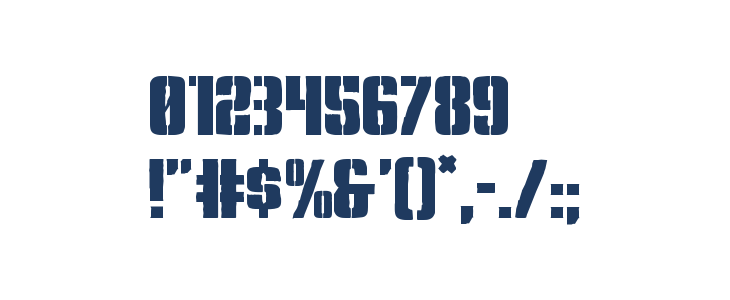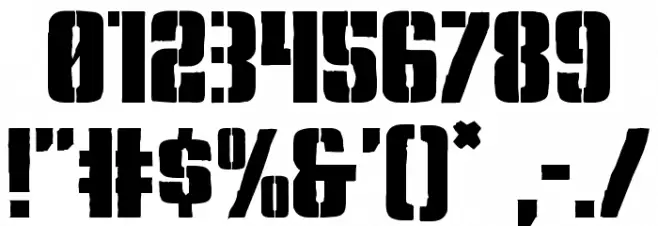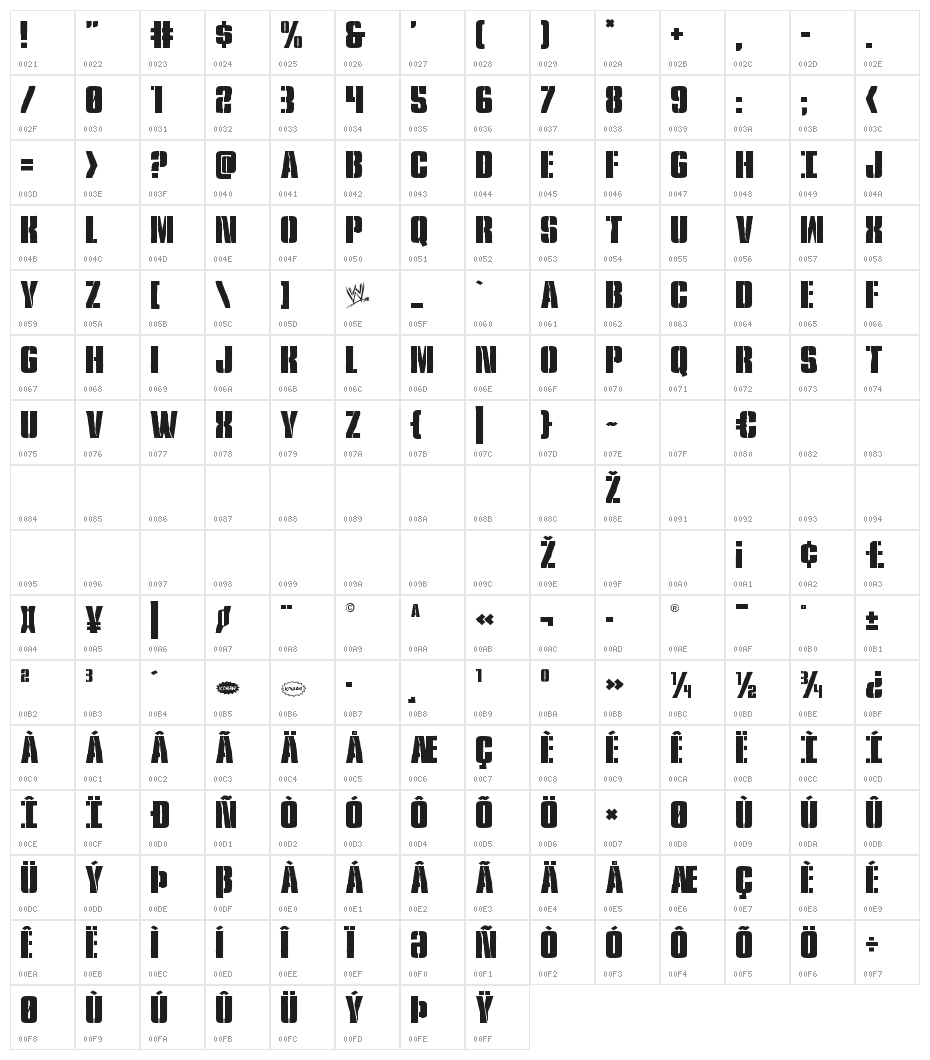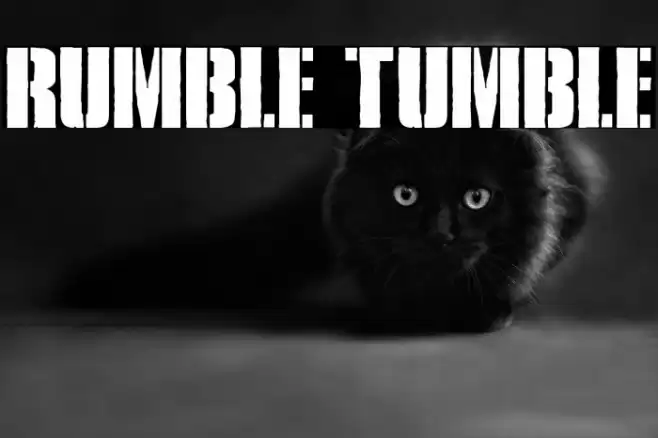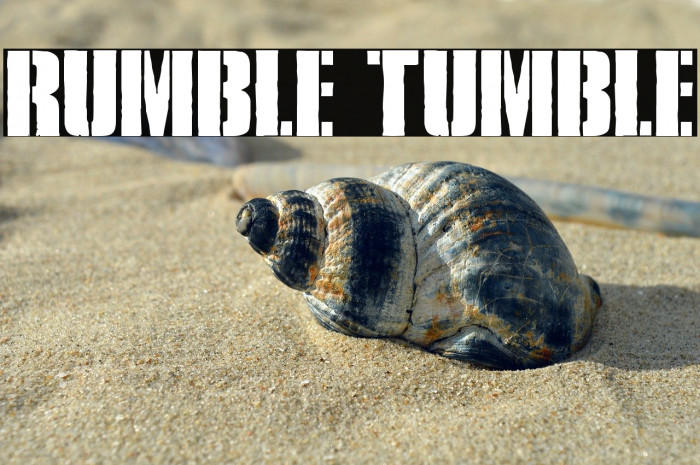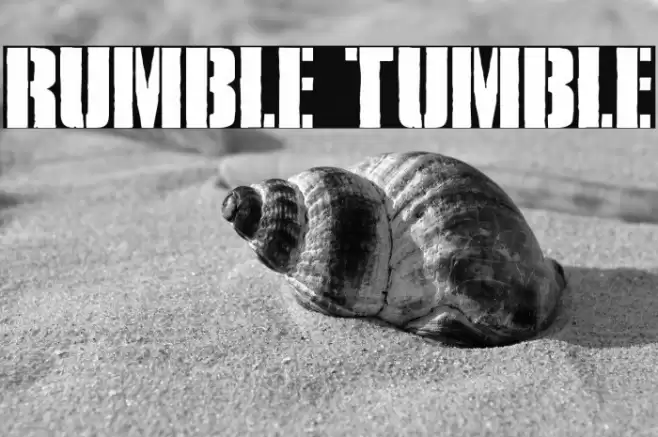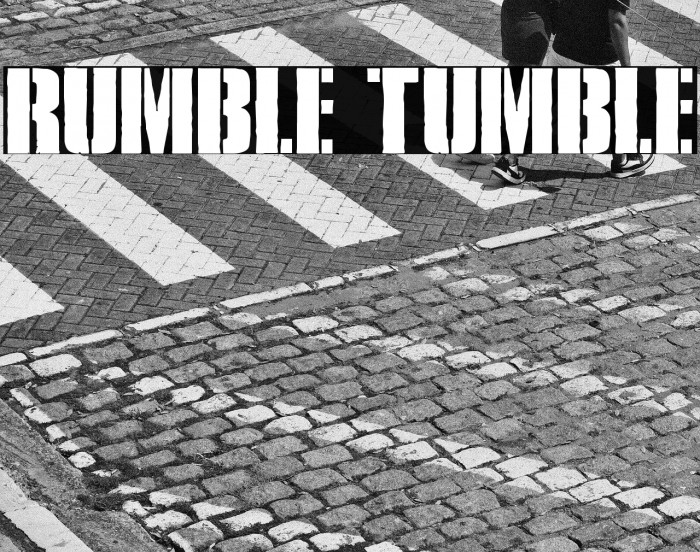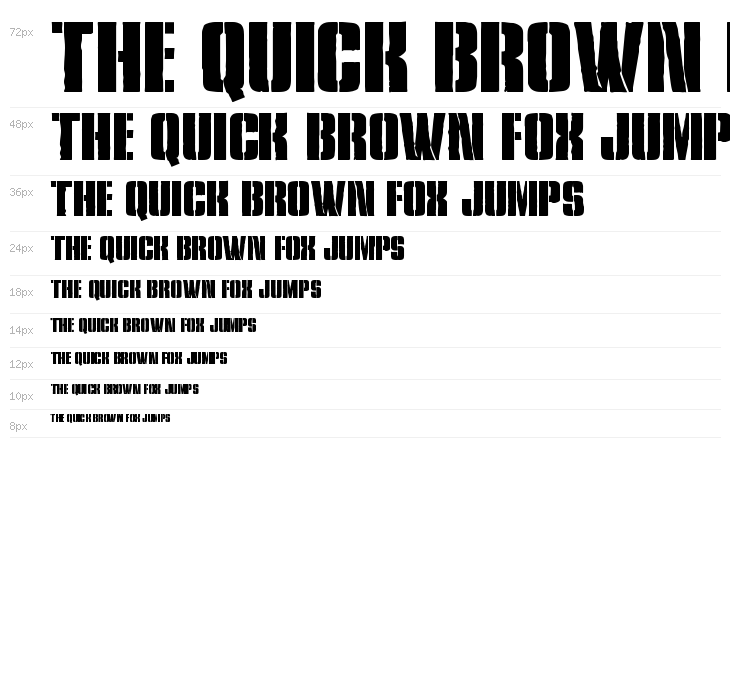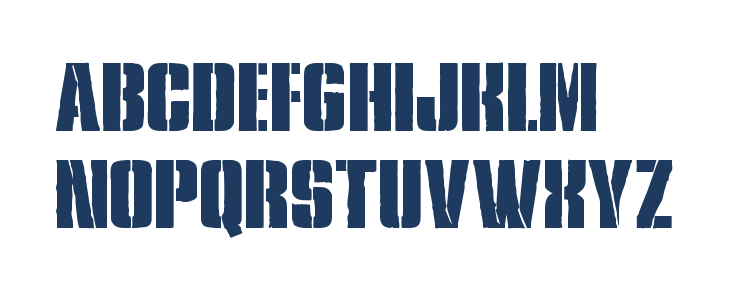
Rumble Tumble Font
Rumble Tumble Description
This font features a bold, distressed style with a stencil-like appearance, characterized by its rugged and worn-out look. The letters are blocky and robust, with irregular edges that give it a gritty, industrial feel. The uppercase and lowercase letters maintain a consistent weight, while the numbers and special characters follow the same rugged aesthetic. This font's unique design makes it stand out, offering a sense of strength and durability, ideal for projects that require a bold statement.
| Overall Style | Industrial, Rugged, Distressed |
| Proposed Projects | Ideal for posters, album covers, branding for industrial products, or any project needing a strong, edgy aesthetic. |